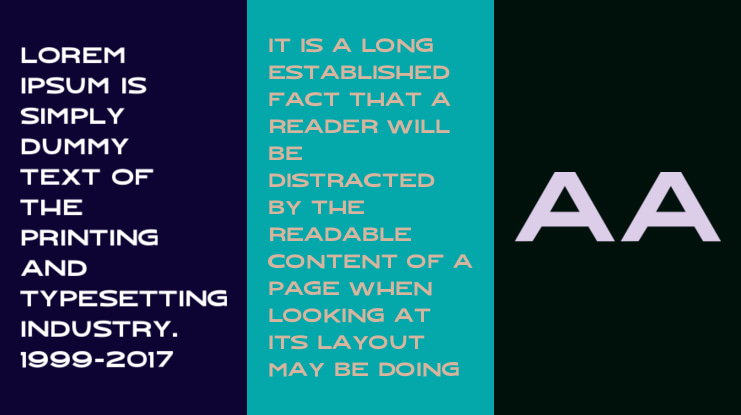
Whirly Birdie Font
Whirly Birdie was inspired by ad lettering of the 50s. Originally released in 2014, this version is re-drawn and expanded. Please donate for commercial use, or contact me if you have any questions!
You may have noticed that the preview says "Whirlie" instead of "Whirly". This is because the Fontspace preview doesn't show kerning, so the WHIRLY looked like WHIRL Y.